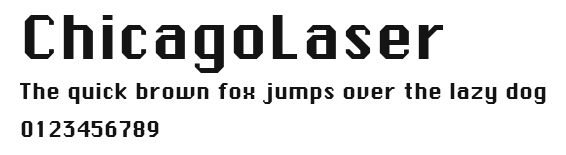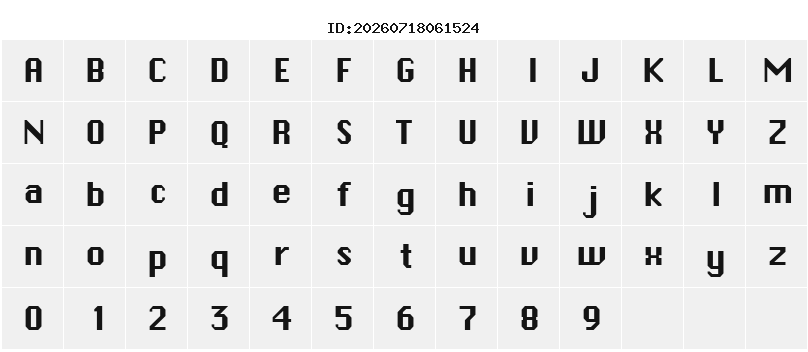
• Font Name: ChicagoLaser
• Full Font Name: ChicagoLaser Medium
About ChicagoLaser.ttf
ChicagoLaser.ttf is a modern, elegant sans-serif font designed for ultimate readability and visual harmony. Perfect for branding, headlines, web design, and print materials.